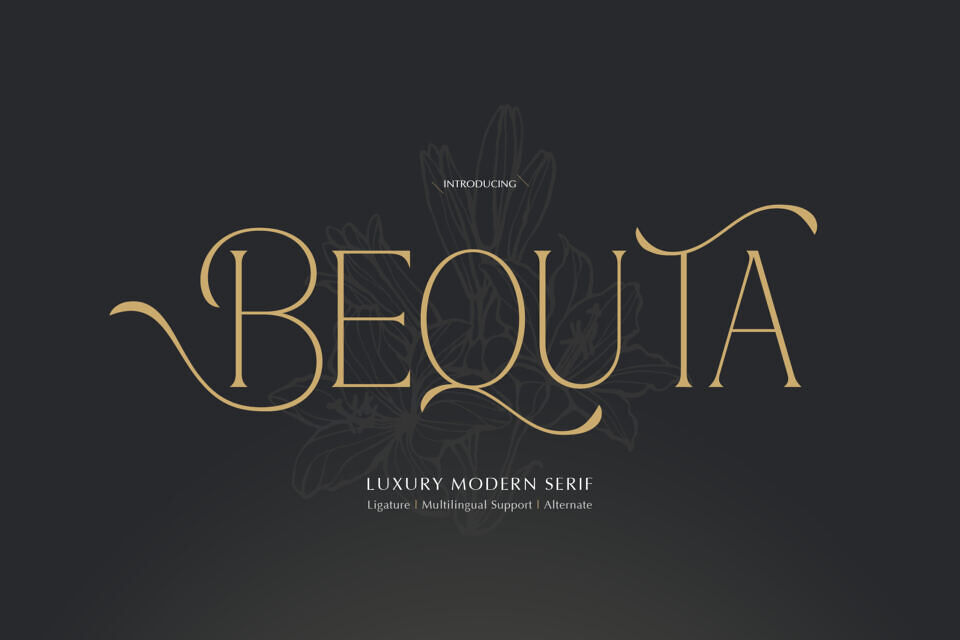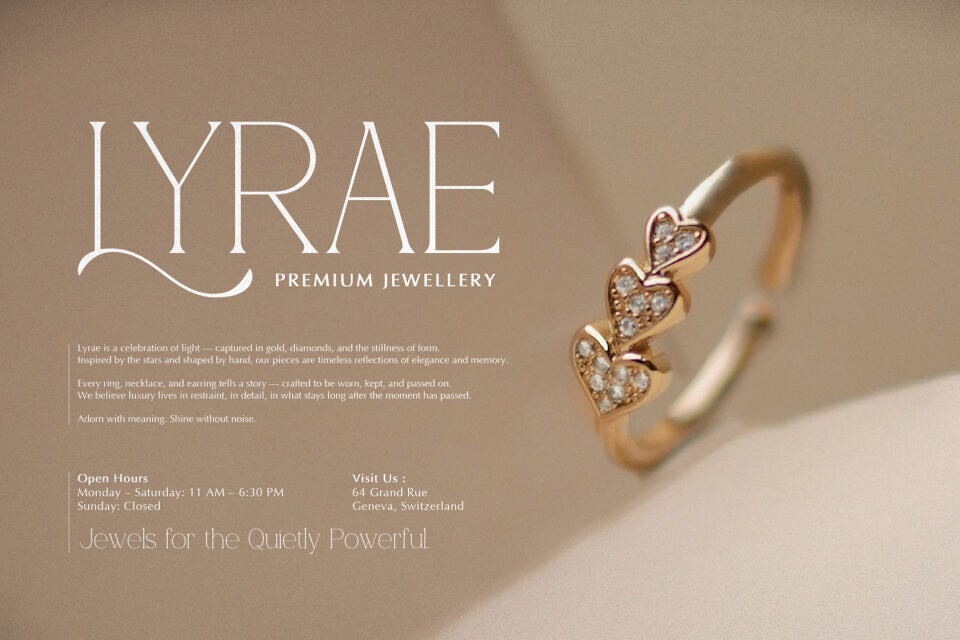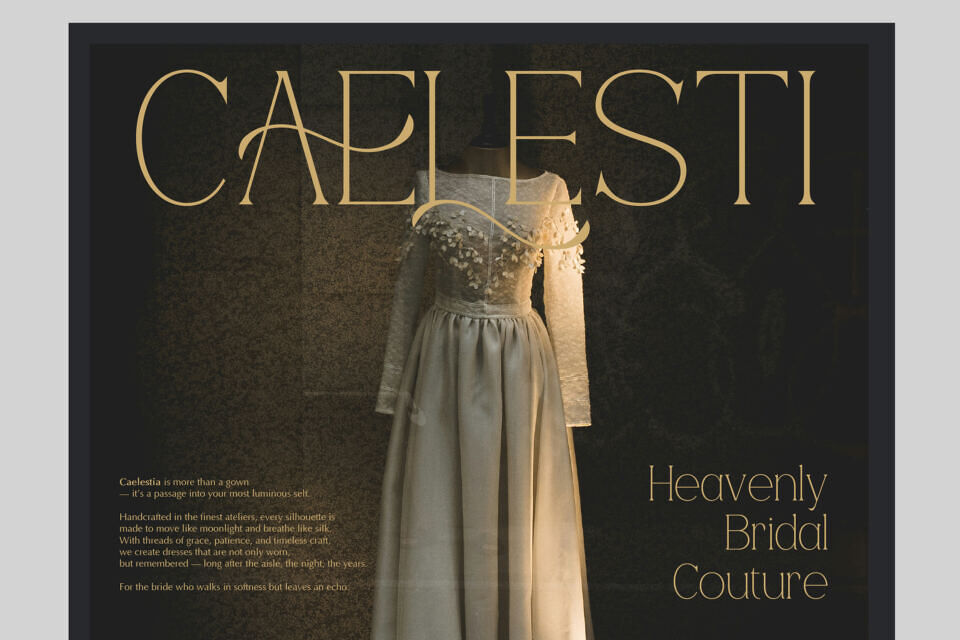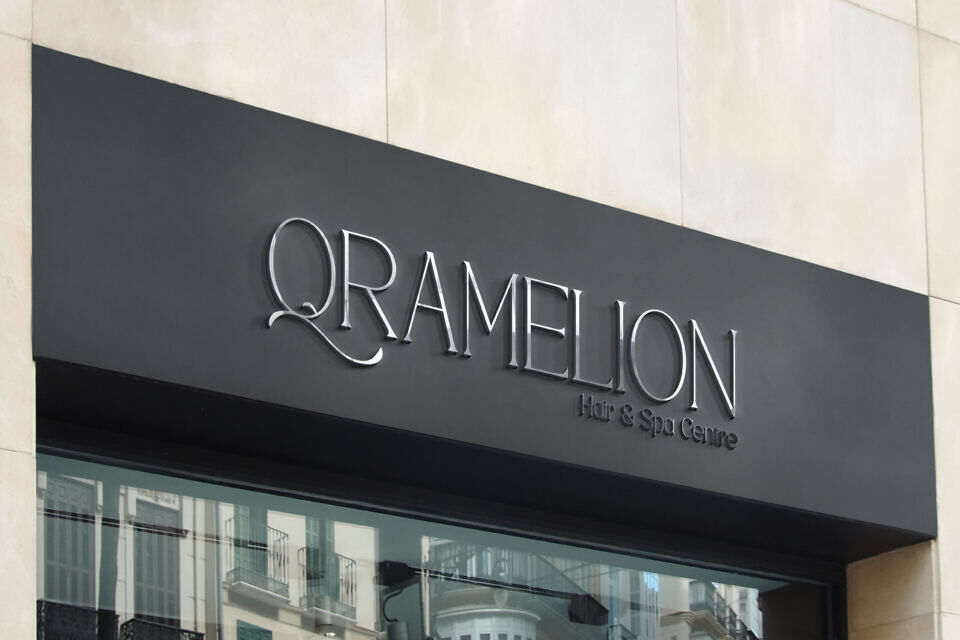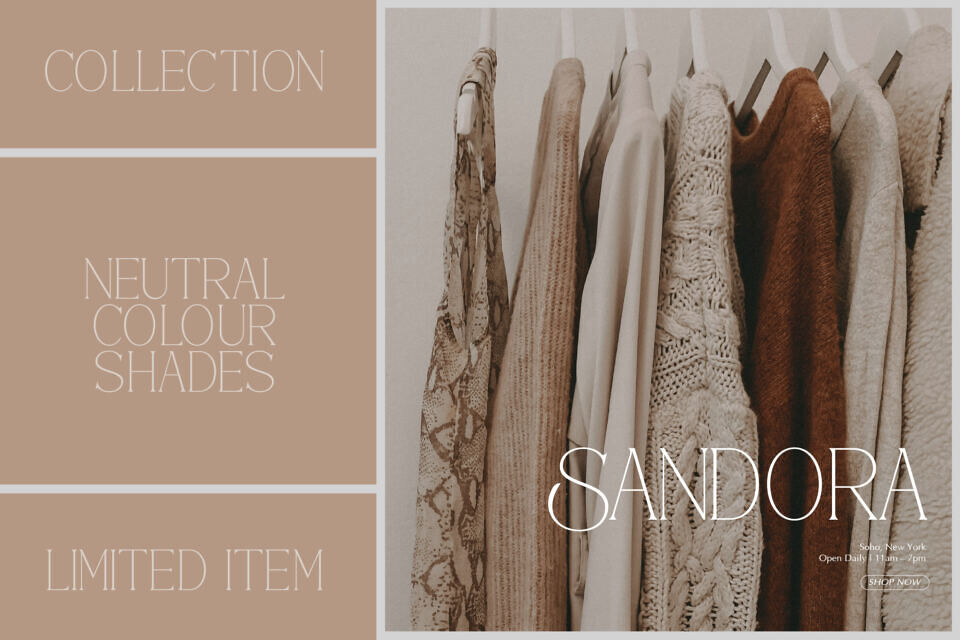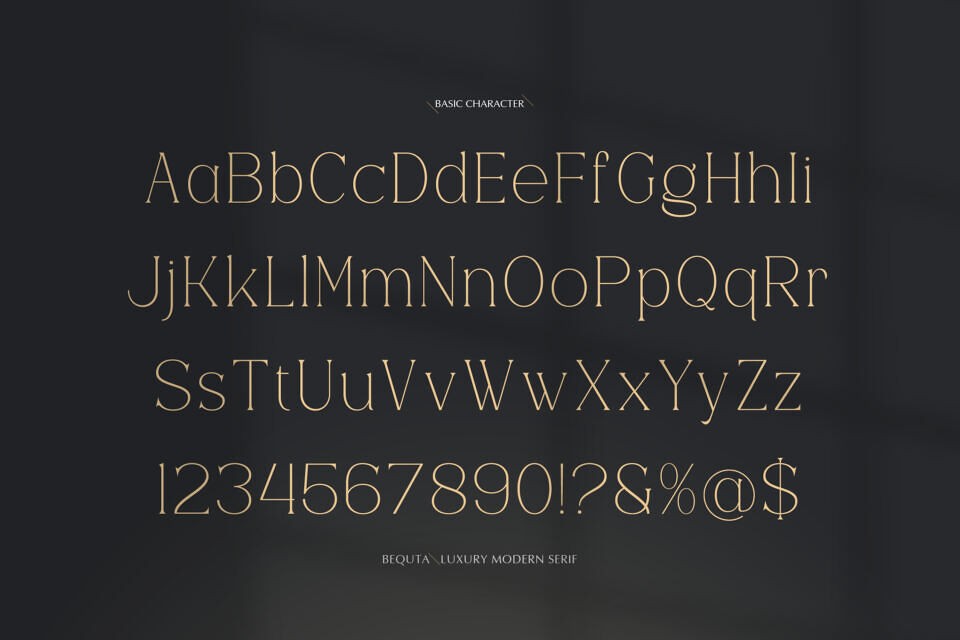
Bequita is a luxury modern serif font with elegant curves, stylish alternates, and delicate swashes that exude sophistication. Designed with fashion, branding, and high-end editorial in mind, this font blends timeless serif structure with decorative flair—perfect for logos, invitations, packaging, or anything that calls for refined beauty and grace.